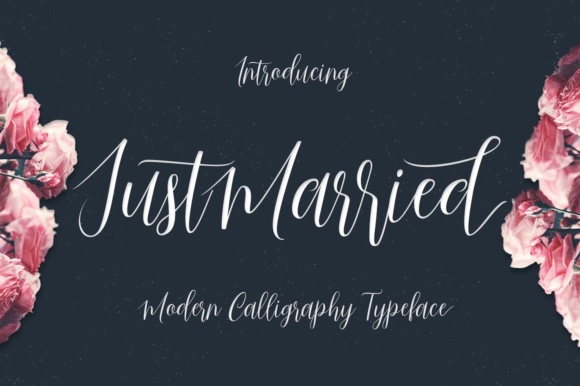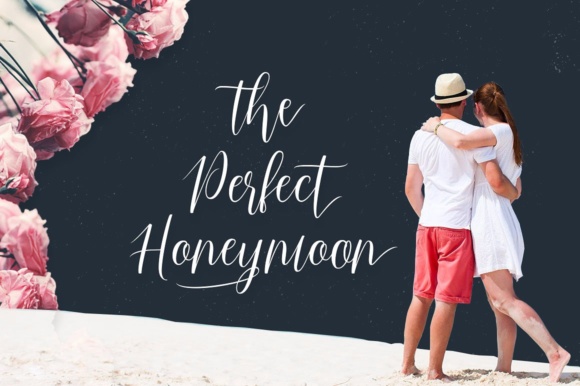
Just Married Script Font
db-ku.com - Script & Handwritten -- Just Married is a feminine script font with fun yet classy characters. It’s perfect for greeting cards, wedding invitations, quotes, and much more!